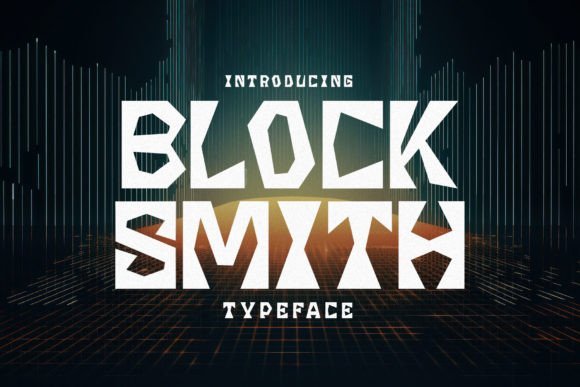
Meet Your New Design Partner: Blocksmith Font
Have you ever been stuck on a design project, searching for the perfect font to capture the essence of your message? You know, that moment when everything feels just out of reach, and you’re left wondering if you’ll ever find the perfect words to express your idea? Well, we’re here to tell you that those days are behind you.
Enter Blocksmith Font, a game-changing typeface designed to make a lasting impact on your audience. This powerful font is crafted to exude strength, confidence, and charisma, making it the perfect choice for designers who want to create bold and impactful designs. With its robust letterforms and perfect balance of boldness and readability, Blocksmith Font is the ultimate tool for designers who want to leave a lasting impression.
Blocksmith Font Key Features
- Font Family: Blocksmith is a sans-serif font family designed for digital use, ideal for body text and titles.
- Size and Resolution: The font family is available in 8 styles, ranging from 100 to 800, with a resolution of 1024 x 1024 DPI for crisp and clear display.
- Unique Characteristics: Blocksmith features a modern, geometric design with clean lines and a strong x-height, making it highly legible on digital screens.
- Language Support: Blocksmith supports a wide range of languages, including Latin, Cyrillic, and Greek scripts, ensuring its versatility in various design projects.
- Kerning and Glyphs: The font family includes expertly crafted kerning and a comprehensive set of glyphs, ensuring seamless text rendering and minimizing the need for manual adjustments.
Blocksmith Font Review
I recently had the chance to work with Blocksmith Font, and I must say it’s an interesting addition to my design library. ✨ One thing that immediately caught my attention is its unique, handcrafted feel, which adds a touch of personality to any design project. The font’s distressed texture and rough edges give it a rugged, industrial look that’s perfect for modern designs.
- Unique, handcrafted feel that adds a touch of personality to designs.
- Rugged, industrial look that’s perfect for modern designs.
- Comes in a range of weights and styles to suit different design needs.
However, I did encounter a few limitations. ⚠️ The font’s uneven texture can sometimes make it difficult to read, especially in smaller sizes. Additionally, the font’s limited language support may be a concern for designers working on international projects. Finally, some users may find the font’s distressed look to be too over-the-top or gimmicky.
Overall, I’d say Blocksmith Font is a solid choice for designers looking to add a touch of edginess to their work. While it may not be suitable for every project, it’s a great option for those who want to create bold, eye-catching designs. Just be sure to use it judiciously and balance it with cleaner, more legible fonts to avoid overwhelming the viewer.
Tips for Getting the Most Out of Blocksmith Font
Here are some tips to help you get the most out of Blocksmith Font:
- Use Blocksmith Font in combination with other fonts to create a unique and interesting typography.
- Pay attention to the font’s bold and italic weights to add depth and variety to your design.
Alternatives to Blocksmith Font
Montserrat is a sans-serif font that is highly versatile and suitable for various design projects. It is ideal for use in logos, headlines, and body text where a clean and modern look is desired. Montserrat is a free font that is widely used and accepted across different devices and platforms. It compares to Blocksmith Font in its modern and clean aesthetic, but Montserrat has a more geometric feel and is more suitable for digital use.
Playfair Display is an elegant and luxurious serif font that is perfect for use in high-end branding, advertising, and editorial projects. It is ideal for use in headlines, titles, and other display text where a touch of sophistication is desired. Playfair Display is a more ornate and decorative font compared to Blocksmith Font, and it is not as suitable for use in body text or digital projects.